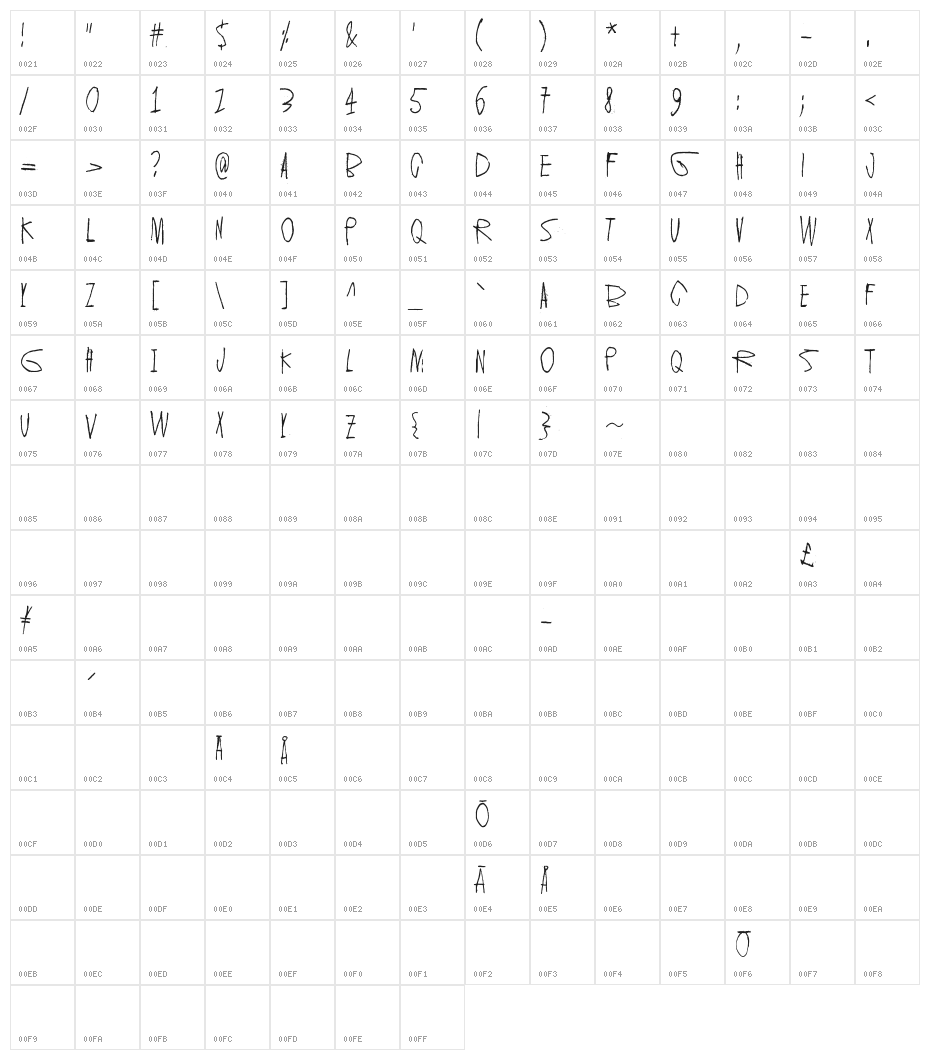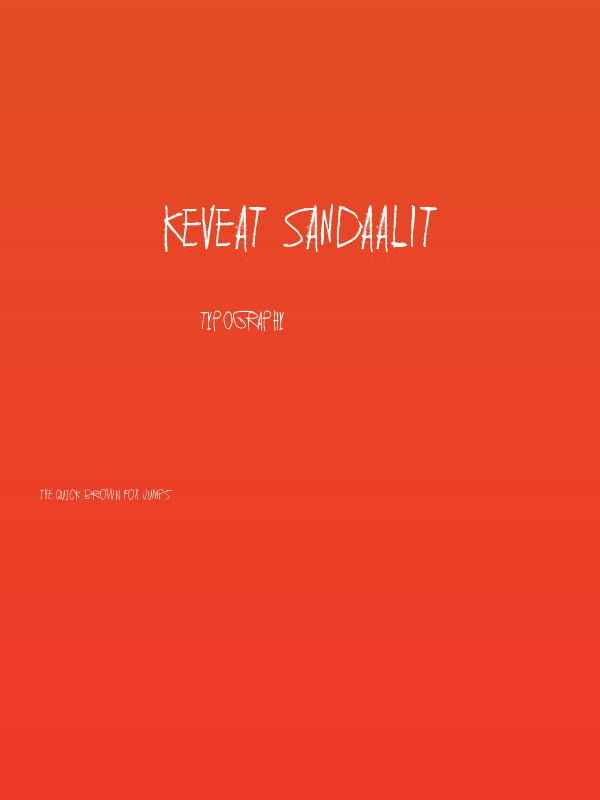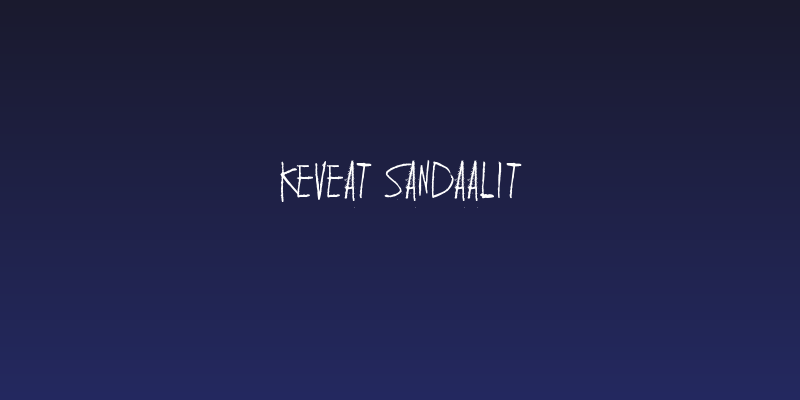
Keveat sandaalit Font
Keveat sandaalit Description
This font features a hand-drawn, sketch-like appearance with irregular strokes and a playful, informal style. The characters are tall and narrow, with a slightly uneven baseline that adds to its casual charm. The uppercase and lowercase letters maintain a consistent style, with some letters exhibiting unique quirks, such as the slanted crossbar on the 'A' and the looped tail on the 'Q'. Numbers and special characters follow the same whimsical design, making the font suitable for creative and artistic projects. The overall look is reminiscent of graffiti or doodles, giving it a youthful and energetic vibe.
| Use Case | Headlines, Logos, Artistic designs |
| Proposed Projects | Ideal for creative projects like posters, album covers, children's books, or any design requiring a fun and artistic touch. |